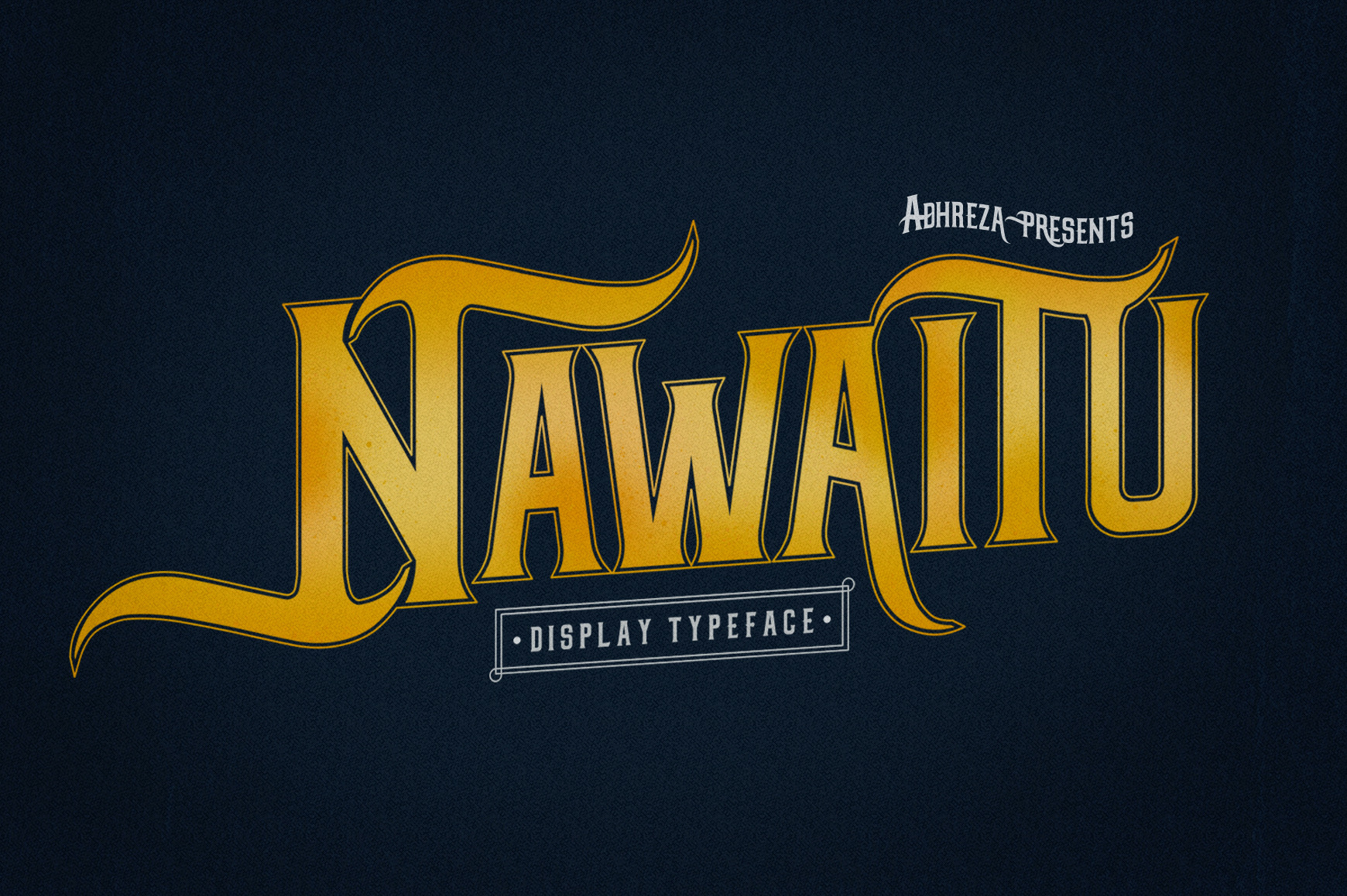
Nawaitu Typeface +
Nawaitu Typeface is my first display font with alternates to make an unique title that inspired by the natural form like the word 'nawaitu' (means: intention) . The character is allcaps with alternate shapes in other file that you can choose. The shape have a stylist feels and can be use in vintage/classic or gentle theme.